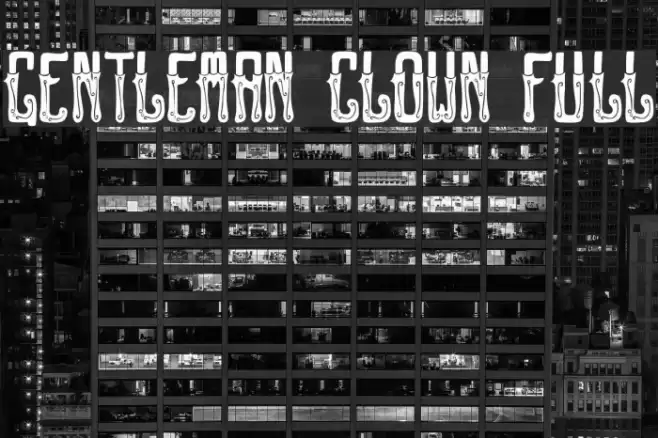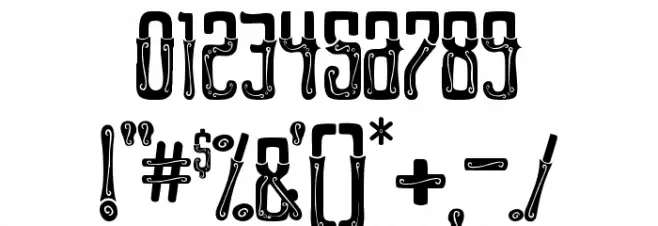
GENTLEMAN CLOWN FULL Font
GENTLEMAN CLOWN FULL Description
This font features a unique and playful design with a decorative style that incorporates elements reminiscent of vintage circus aesthetics. The characters are bold and have intricate details, such as swirls and dots, that add a whimsical touch. The uppercase and lowercase letters maintain a consistent style, with a slightly condensed appearance. The numbers and special characters follow the same decorative theme, making the font suitable for creative and eye-catching designs. Its distinct personality makes it ideal for projects that require a fun and engaging visual element.
A decorative and whimsical font with vintage circus-inspired details from Retro fonts.
- Proposed Projects: Ideal for posters, event invitations, branding for playful or vintage-themed businesses, and any design requiring a bold, decorative touch.
- Overall Style: Vintage, Decorative